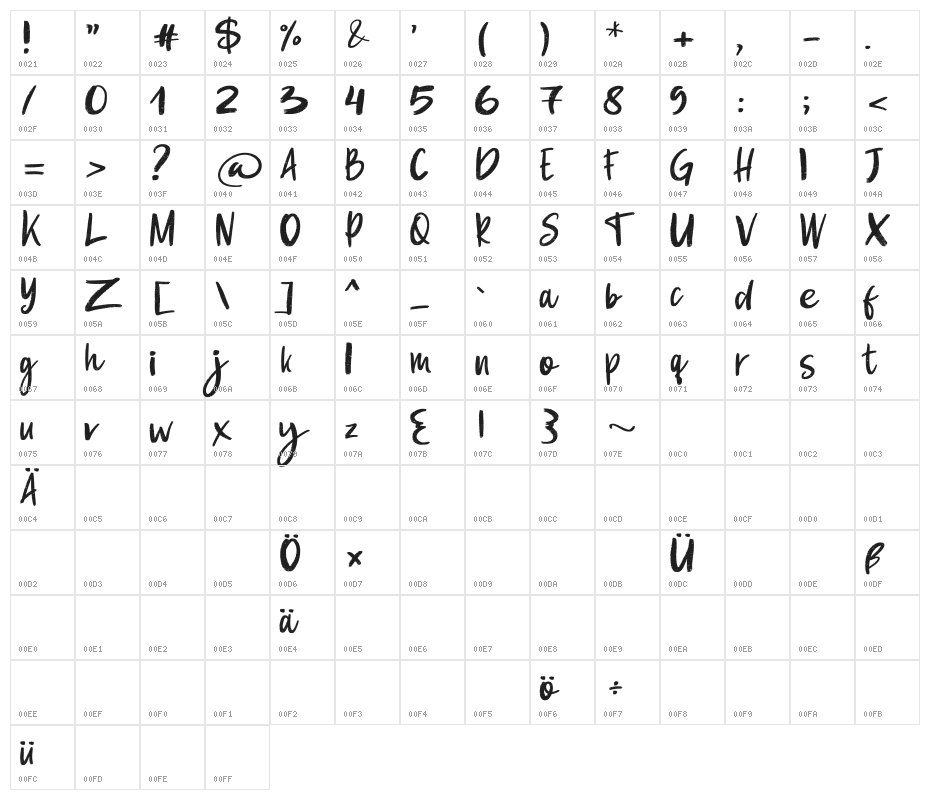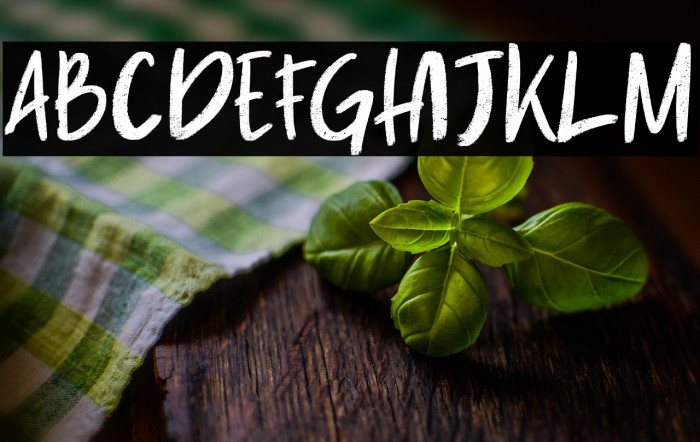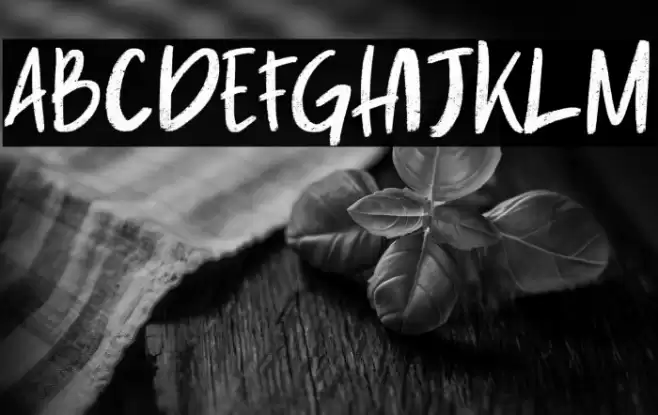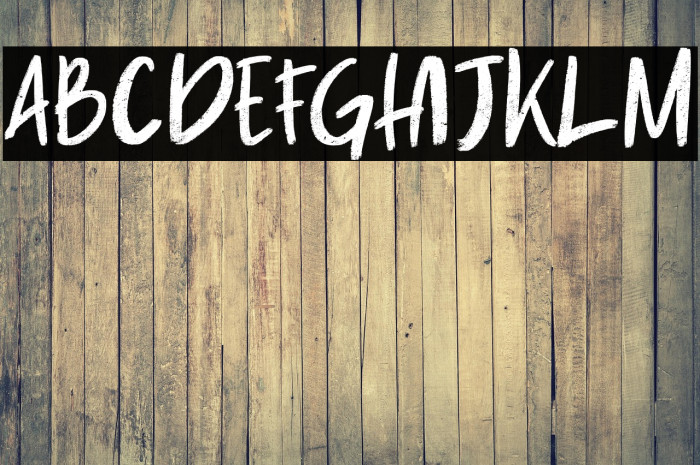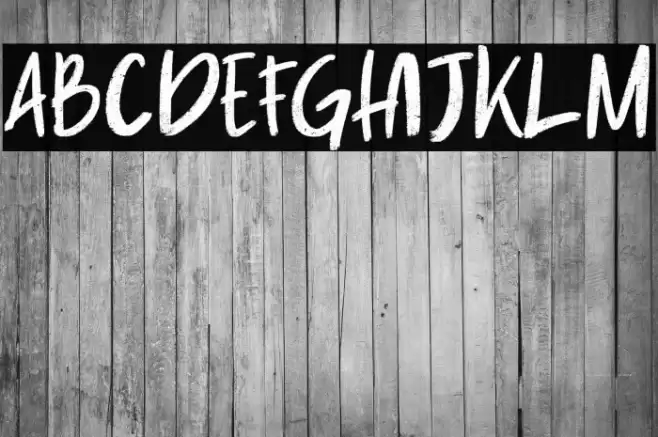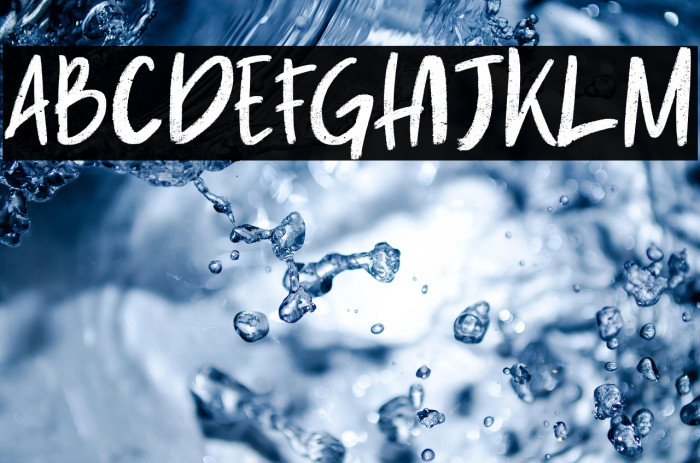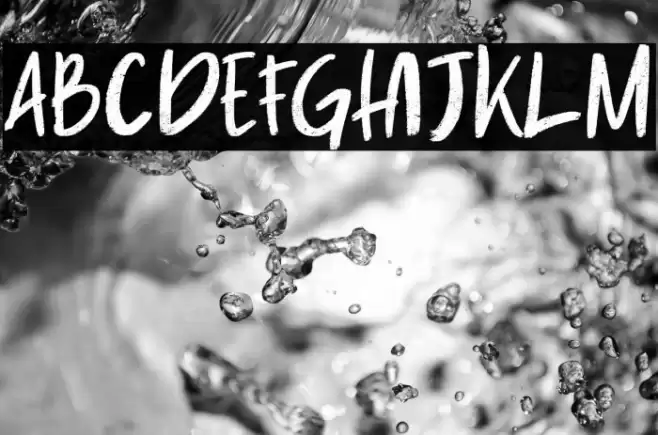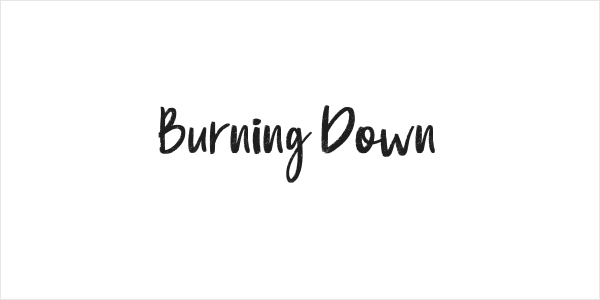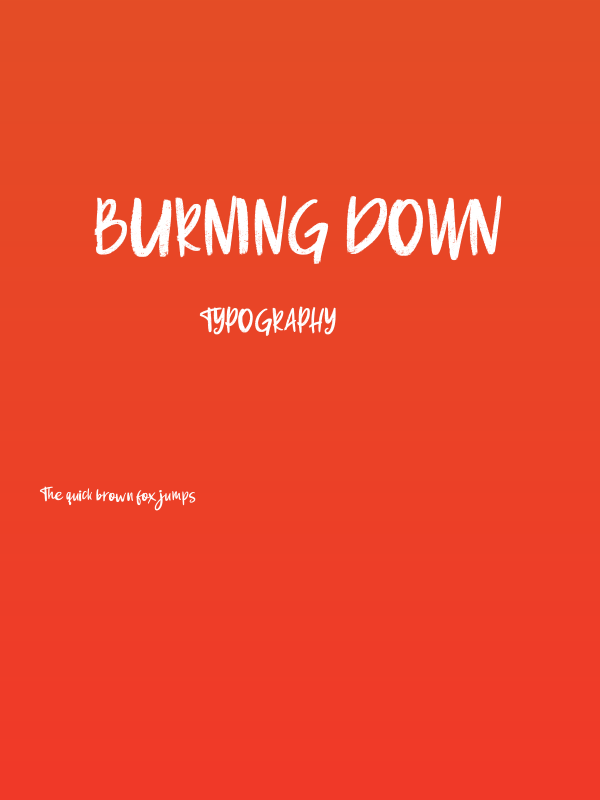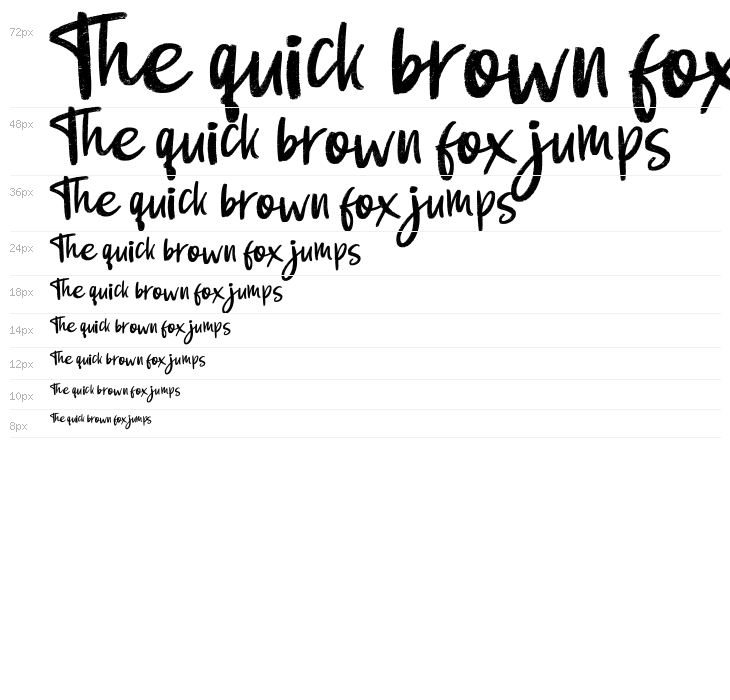
Burning Down Font
Burning Down Description
This font features a bold, expressive style with a hand-painted appearance. The strokes are thick and textured, giving it a raw, energetic feel. The letters are slightly irregular, adding to the handmade aesthetic. Uppercase and lowercase letters maintain a consistent style, with a playful and dynamic flow. The numbers and special characters are equally bold, ensuring a cohesive look across all elements. This font is ideal for projects that require a personal, artistic touch, such as posters, branding, and creative designs.
| Proposed Projects | Ideal for posters, branding, creative designs, and any project needing an artistic touch. |